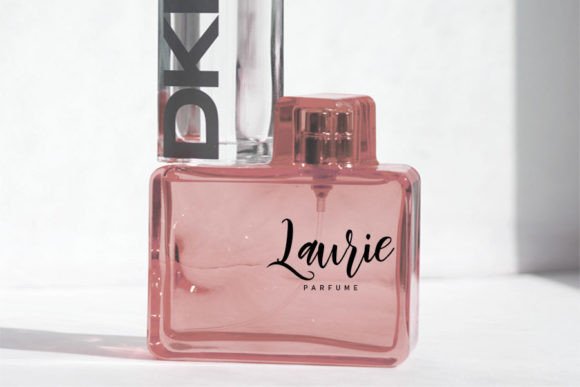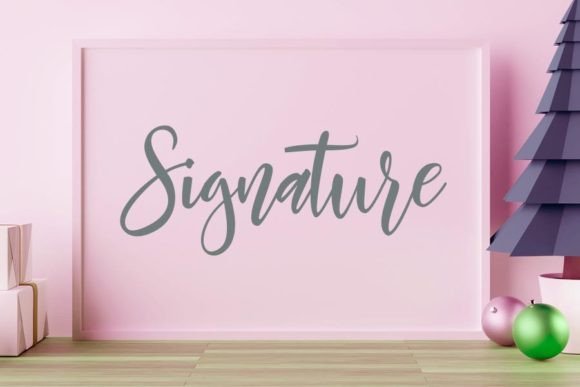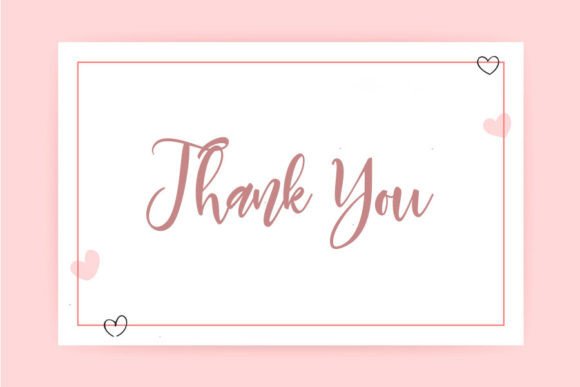
Introducing Charmilla Font: The Ultimate Design Game-Changer
Are you tired of using the same old fonts in your designs? Look no further! Charmilla Font is here to revolutionize the way you create. This fun and friendly handwritten font is the perfect addition to any design project, turning even the most ordinary ideas into standouts. With its unique charm and character, Charmilla Font is sure to inspire you to create something truly special.
The Story Behind Charmilla Font
Charmilla Font was created with the intention of bringing a touch of warmth and personality to your designs. Its friendly and approachable vibe makes it perfect for a wide range of projects, from branding and advertising to crafting and DIY tutorials. The font’s unique charm lies in its hand-crafted feel, which adds a level of humanity and emotion to your designs that is hard to achieve with more traditional fonts.
What Makes Charmilla Font So Special?
So, what sets Charmilla Font apart from other fonts on the market? Here are just a few of its standout features:
- Handwritten with love: Charmilla Font is carefully crafted by hand, giving it a unique and personal touch that is impossible to replicate with digital fonts.
- Fun and friendly: The font’s playful and approachable vibe makes it perfect for designs that need to connect with their audience on a more personal level.
- Highly versatile: Whether you’re working on a branding project, crafting tutorial, or social media graphic, Charmilla Font is the perfect choice.
- Easy to read: Despite its playful nature, Charmilla Font is highly legible, making it perfect for use in a wide range of applications.
How to Use Charmilla Font in Your Designs
Ready to get started with Charmilla Font? Here are a few ideas to get you inspired:
- Branding and advertising: Use Charmilla Font to add a touch of personality to your brand’s marketing materials, from business cards to billboards.
- Crafting and DIY tutorials: Charmilla Font is perfect for crafting and DIY tutorials, adding a warm and welcoming touch to your instructions and guides.
- Social media graphics: Use Charmilla Font to create eye-catching social media graphics that are sure to stand out in crowded feeds.
- Party invitations and decorations: Charmilla Font is the perfect choice for party invitations, decorations, and other celebratory materials.
Tips and Tricks for Getting the Most Out of Charmilla Font
Here are a few tips and tricks to help you get the most out of Charmilla Font:
- Experiment with colors: Charmilla Font looks great in a wide range of colors, so don’t be afraid to get creative and try out different combinations.
- Mix and match: Combine Charmilla Font with other fonts and design elements to create unique and eye-catching designs.
- Play with textures: Add an extra layer of depth and interest to your designs by incorporating textures and patterns.